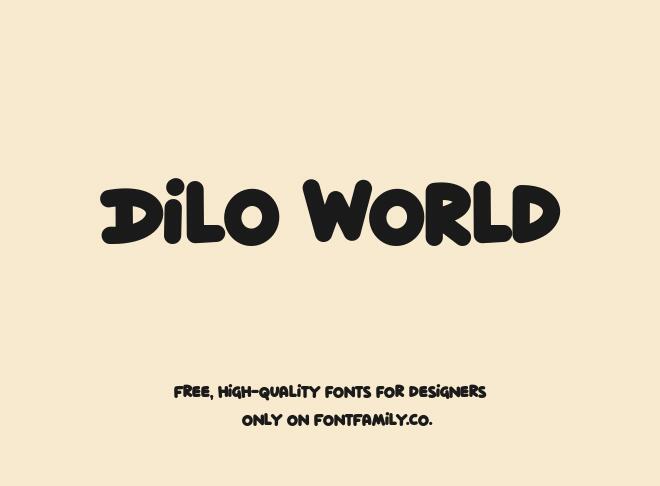
Dilo World Font
Dilo World Font is a contemporary, playful, and decorative typeface designed by Dilo Design. It's a fantastic choice for designers seeking a modern and distinctive font that can make a statement. With its unique character design, Dilo World Font stands out among the crowd, making it perfect for logos, headers, and display text. The font carries a playful vibe, making it ideal for child-focused designs, games, or any project that needs a touch of fun. Despite its decorative nature, the font maintains a high level of readability, which is a testament to its well-thought-out design. Dilo World Font is a free-to-use typeface that offers a unique blend of style and functionality, making it a must-have in every designer's toolkit.